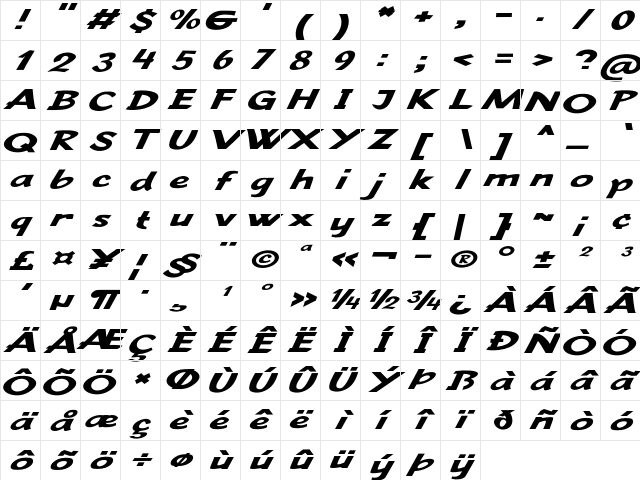
Jellybowl Extra-expanded Italic
Style: Extra-expanded Italic
Jellybowl Family
Jellybowl Extra-expanded Italic
Design Context for Jellybowl
Jellybowl is a composed and adaptable typeface that performs quietly and consistently across a wide range of design contexts. The slanted form adds forward momentum and visual energy.
Pro Tip: Use Jellybowl for emphasis, pull quotes, and subheadings where its slanted energy can add rhythm to the layout.